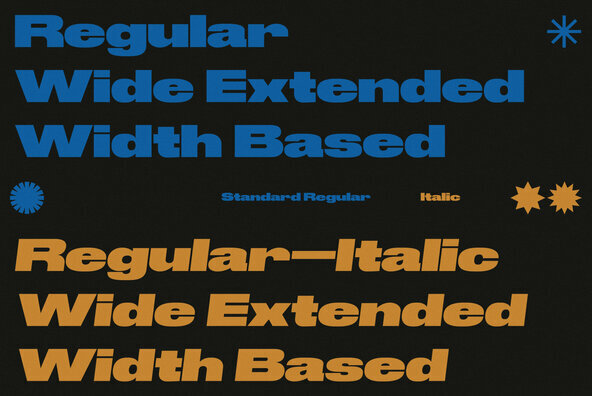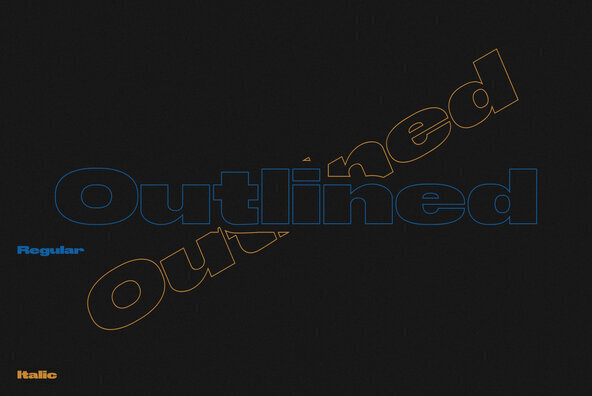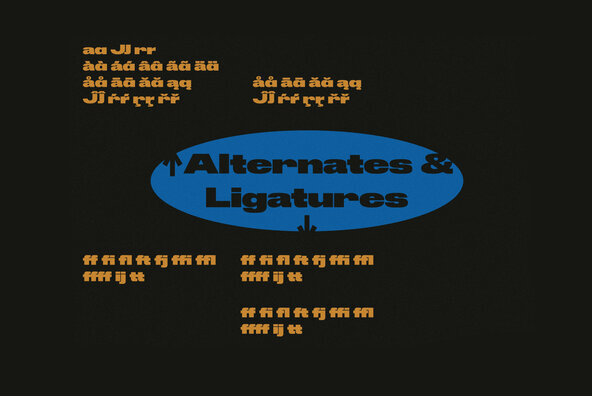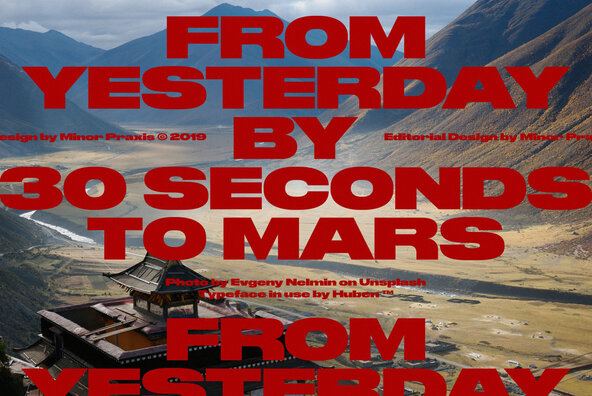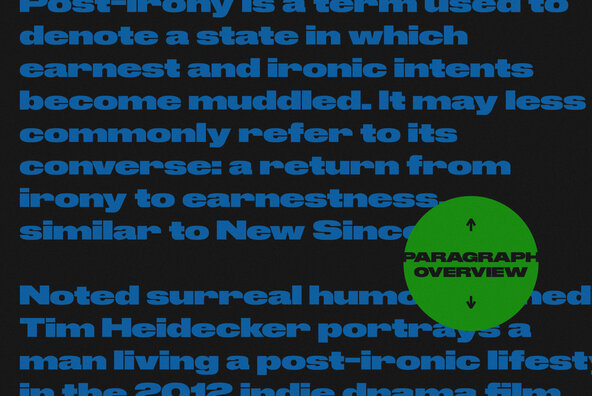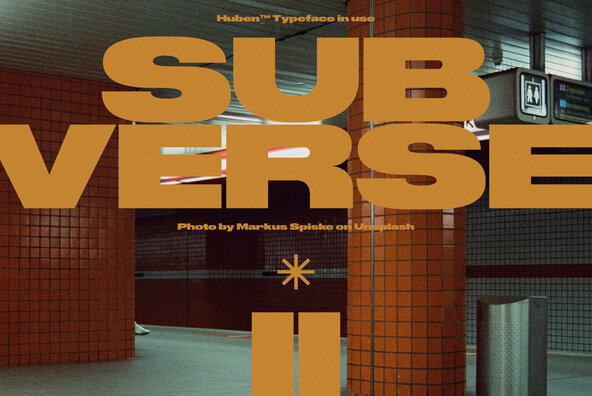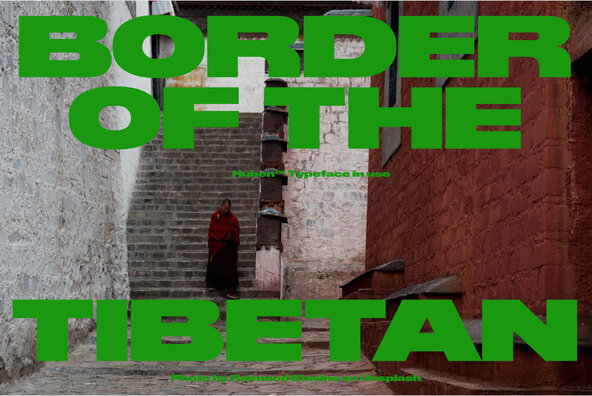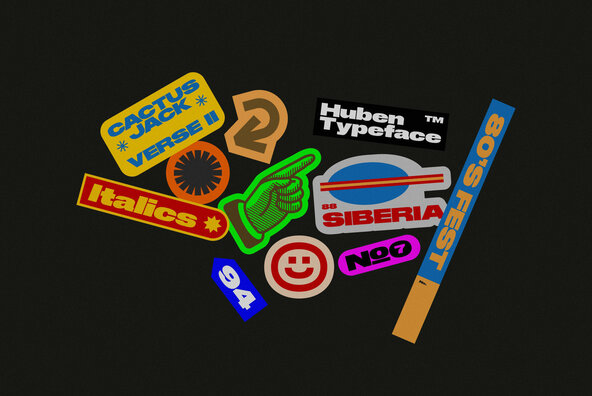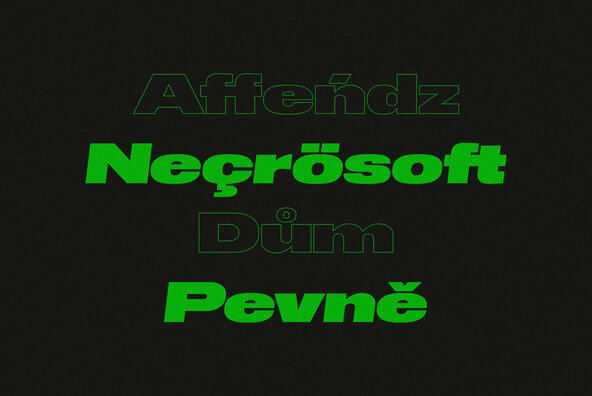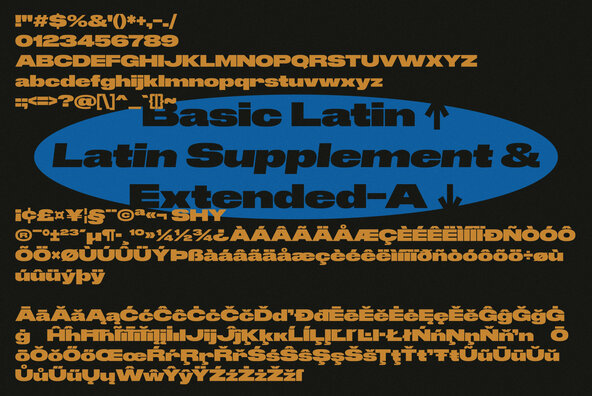
Huben Font
Inspired by a dark techno typography design style which tends to utilize space of a module. Designed for headlines, titling, large-format prints and posters.
Huben is a wide extended width based, dense kern, a strong of a structures and heavy looks, make it more loud and on-point type of impression. Matched with basic sans serif typefaces as a body copy.
Available regular and italic in standard and outlined version of styles with multi languages support. Ligatures, stylistic alternates, and some stuff like icons and symbols are added.